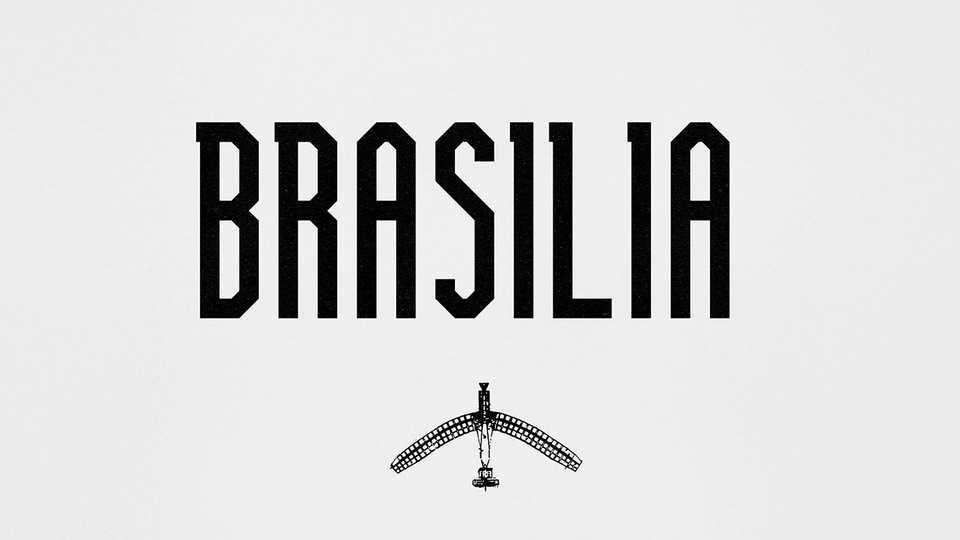
Download Brasilia typeface, a classy sans serif font family in six versions, including shadows, condensed and extended styles. As Brasilia (the city) itself, it holds an old-modern design.
Designer: Antonio Rodrigues Jr